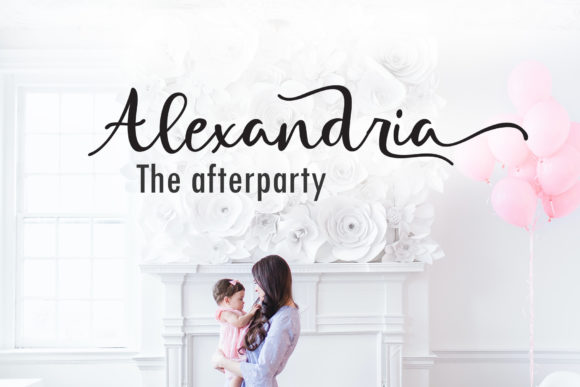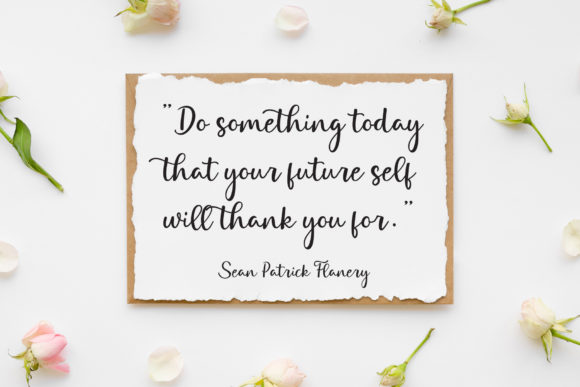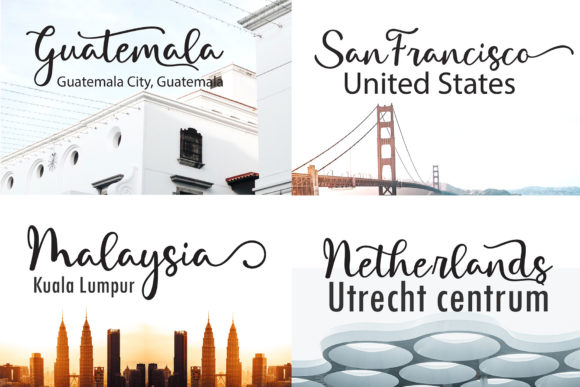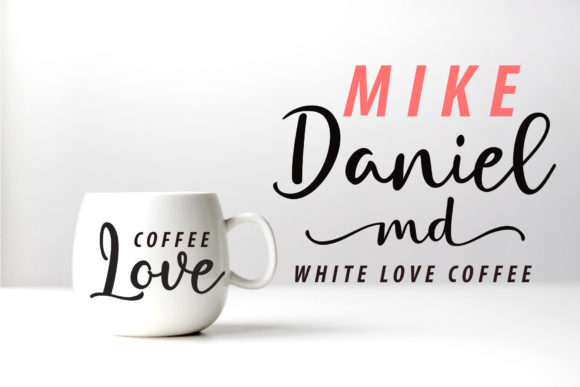
Cangela Font: The Ultimate Romantic Calligraphy Typeface
Are you a designer or crafter looking for a font that exudes romance and sweetness? Look no further than the Cangela Font! This beautiful calligraphy typeface is perfect for a variety of design projects, from wedding invitations and stationery to branding and packaging. In this article, we’ll dive into the features and benefits of the Cangela Font, and explore how it can elevate your designs.
A Romantic and Sweet Calligraphy Typeface
The Cangela Font is a romantic and sweet calligraphy typeface that is sure to capture the hearts of designers and crafters alike. Its characters dance along the baseline, giving it a playful and whimsical feel. The font has a casual, yet elegant touch that makes it perfect for a wide range of design projects. Whether you’re creating a wedding invitation, a brand logo, or a social media graphic, the Cangela Font is sure to add a touch of romance and sophistication.
One of the standout features of the Cangela Font is that it is PUA (Private Use Area) encoded. This means that you can access all of the glyphs and swashes with ease, giving you maximum flexibility and creativity when it comes to your designs. With the Cangela Font, you can easily add flourishes and swashes to your text, creating beautiful and unique designs that are sure to stand out.
The Cangela Font is perfect for designers and crafters who are looking for a high-quality calligraphy typeface that is easy to use and versatile. Whether you’re a seasoned designer or just starting out, this font is sure to become a staple in your collection. The Cangela Font is also perfect for crafters who are looking to add a personal touch to their projects, such as handmade cards, scrapbook pages, and other paper crafts.
- Romantic and sweet calligraphy typeface: The Cangela Font is a beautiful and elegant calligraphy typeface that is perfect for a wide range of design projects.
- Casual, yet elegant touch: The font has a casual, yet elegant touch that makes it perfect for designers and crafters who are looking for a versatile typeface.
- PUA encoded: The Cangela Font is PUA encoded, making it easy to access all of the glyphs and swashes.
- Perfect for designers and crafters: The Cangela Font is perfect for designers and crafters who are looking for a high-quality calligraphy typeface that is easy to use and versatile.
Design Ideas with Cangela Font
The Cangela Font is a versatile typeface that can be used for a wide range of design projects. Here are a few ideas to get you started:
- Wedding invitations and stationery: The Cangela Font is perfect for wedding invitations, stationery, and other wedding-related design projects.
- Branding and packaging: The font is also great for branding and packaging projects, such as logos, labels, and product packaging.
- Social media graphics: The Cangela Font can be used to create beautiful and engaging social media graphics, such as Facebook posts, Instagram stories, and Twitter headers.
- Handmade cards and scrapbook pages: The font is perfect for crafters who are looking to add a personal touch to their handmade cards and scrapbook pages.
In conclusion, the Cangela Font is a beautiful and versatile calligraphy typeface that is perfect for designers and crafters alike. Its romantic and sweet feel, combined with its casual, yet elegant touch, make it a great addition to any design project. With its PUA encoding and ease of use, the Cangela Font is sure to become a staple in your design collection.